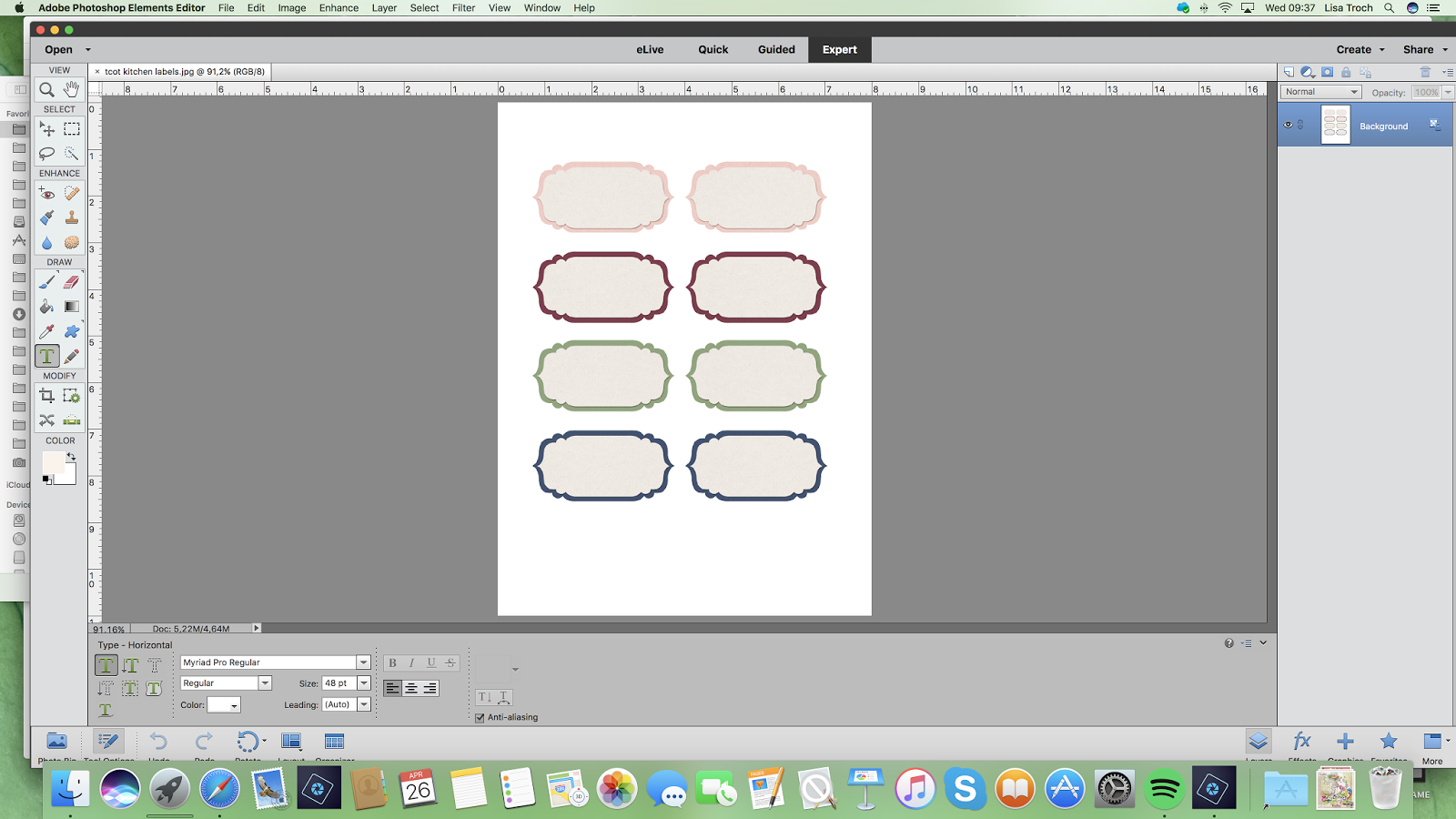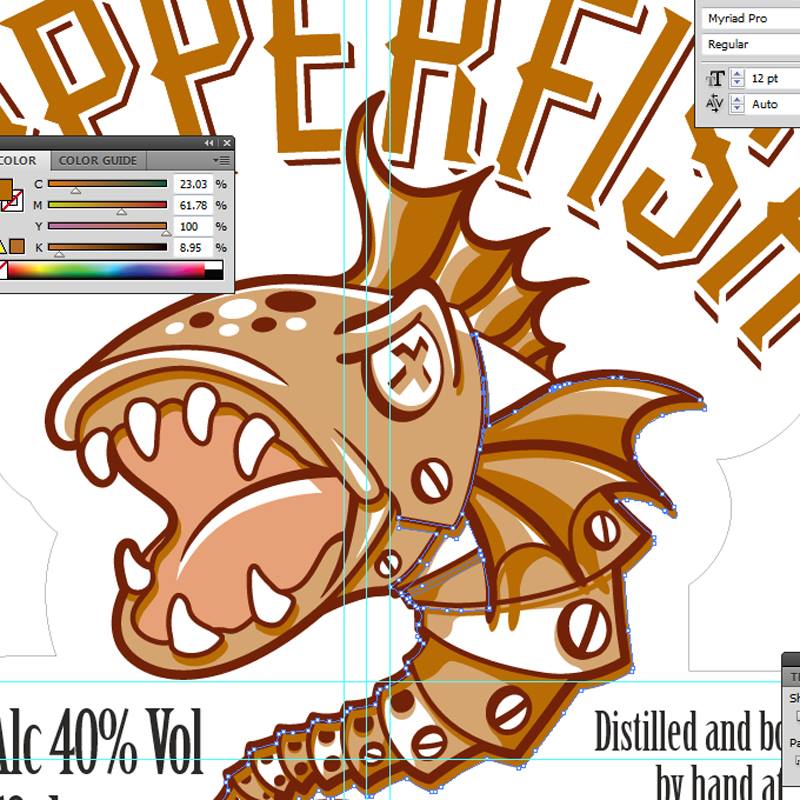
Explore myriad designed by carol twombly robert slimbach at adobe fonts. World font download josefin sans nexa rust script l sfns text regular helvetica regular font free download ttf adam cg pro font free download helvetica normal font free raleway black font free download josefin. Adobe fonts is the easiest way to bring great type into your workflow wherever you are. 93 kb total views.
Enter you text or numbers into a panel below. Myriad pro font free december 12 2018 by editorial leave a comment an adobe originals design and style first launched in 1992 myriad happens to be well liked for both textual content and display screen composition. The fonts presented on this website are their authors property and are either freeware shareware demo versions or public domain. Myriad pro regular font 178749 views 47863 downloads file name.
As an opentype release myriad pro expands this sans serif loved ones to incorporate greek and cyrillic glyphs and also incorporating old style figures and bettering assist for latin based languages. Download myriad pro condensed font family myriad pro by with condensed weight and style download file name is myriadpro condotf. Myriad is a humanist sans serif typeface designed by robert slimbach and carol twombly for adobe systems. The licence mentioned above the download button is just an indication.